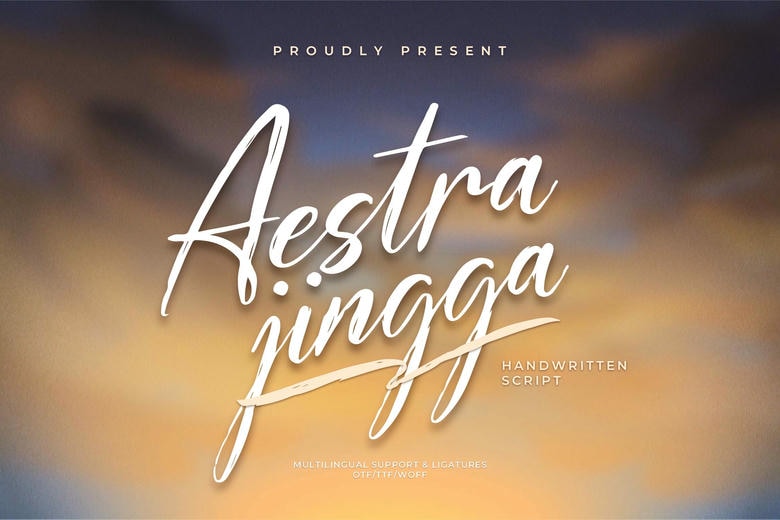
Aestra Jingga is one of the nice handwritten script font that seems to have been written by hand. Its chic and classy font style, created from handwritten style, make it appropriate for use in places such as invitations, and quote descriptions, among others.
Aestra Jingga Handwritten Script Font